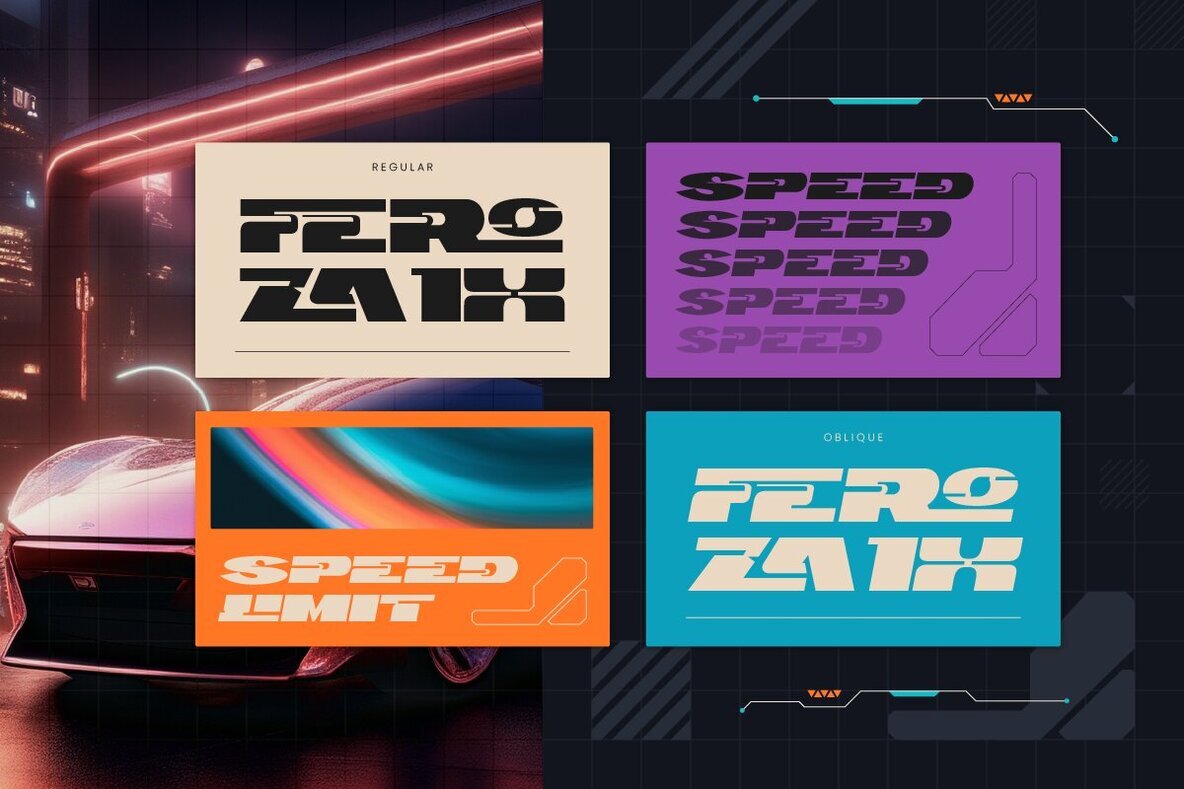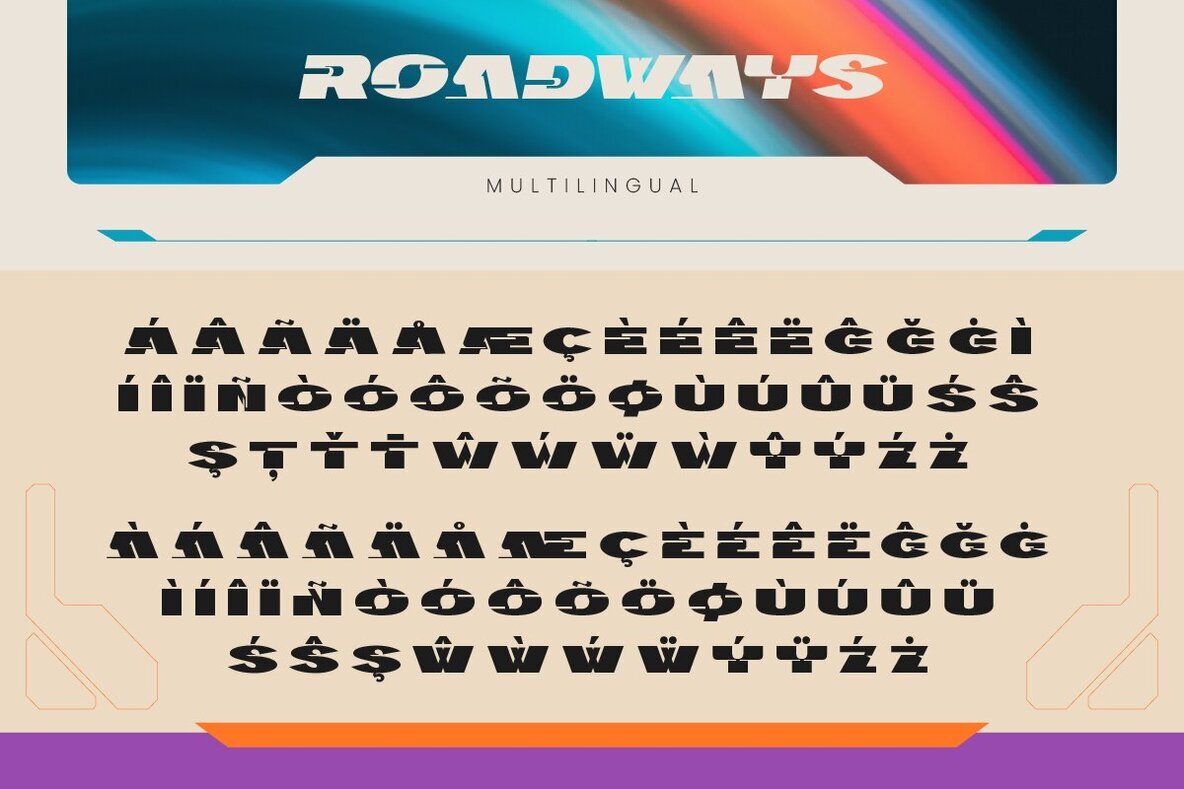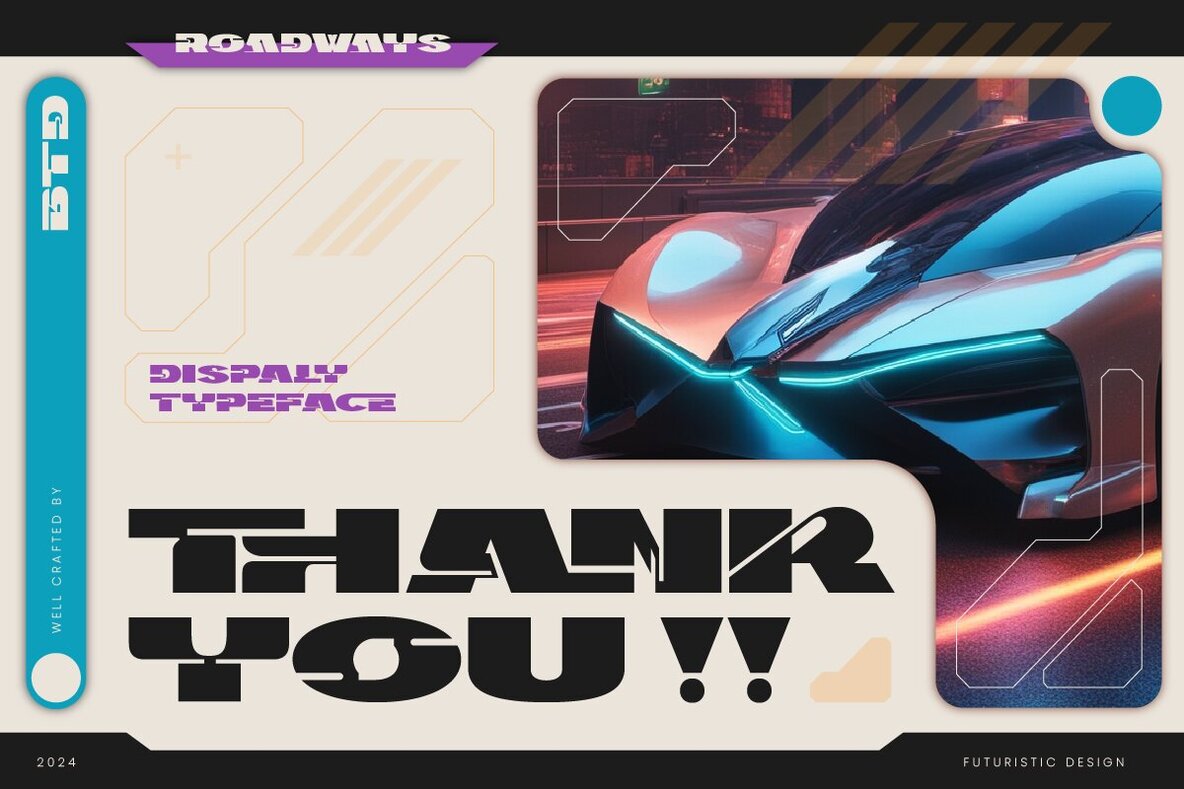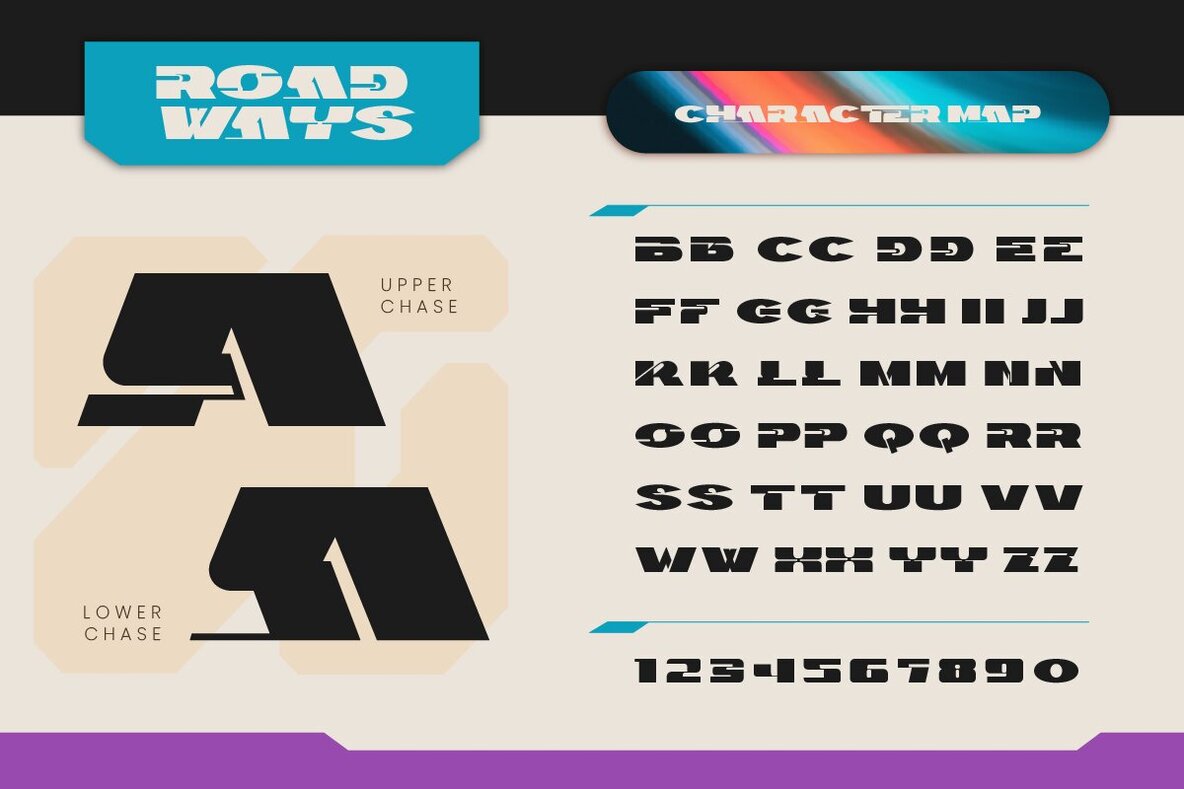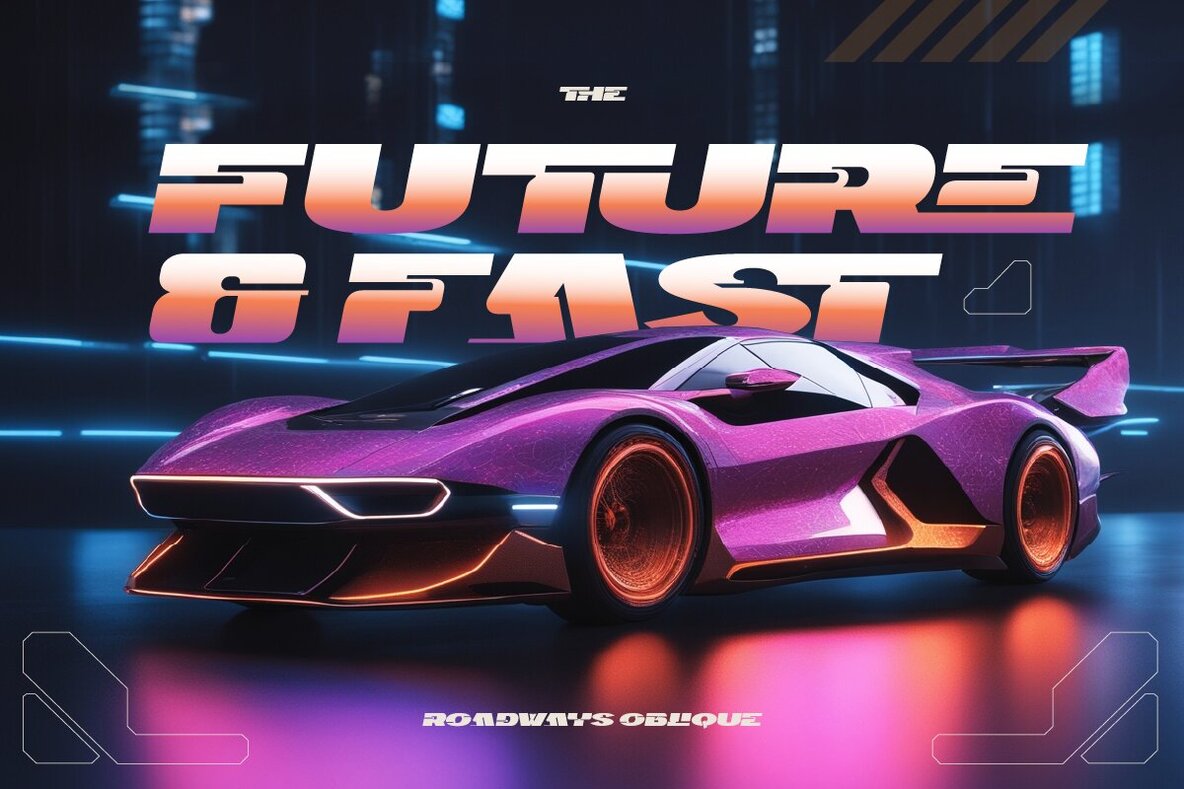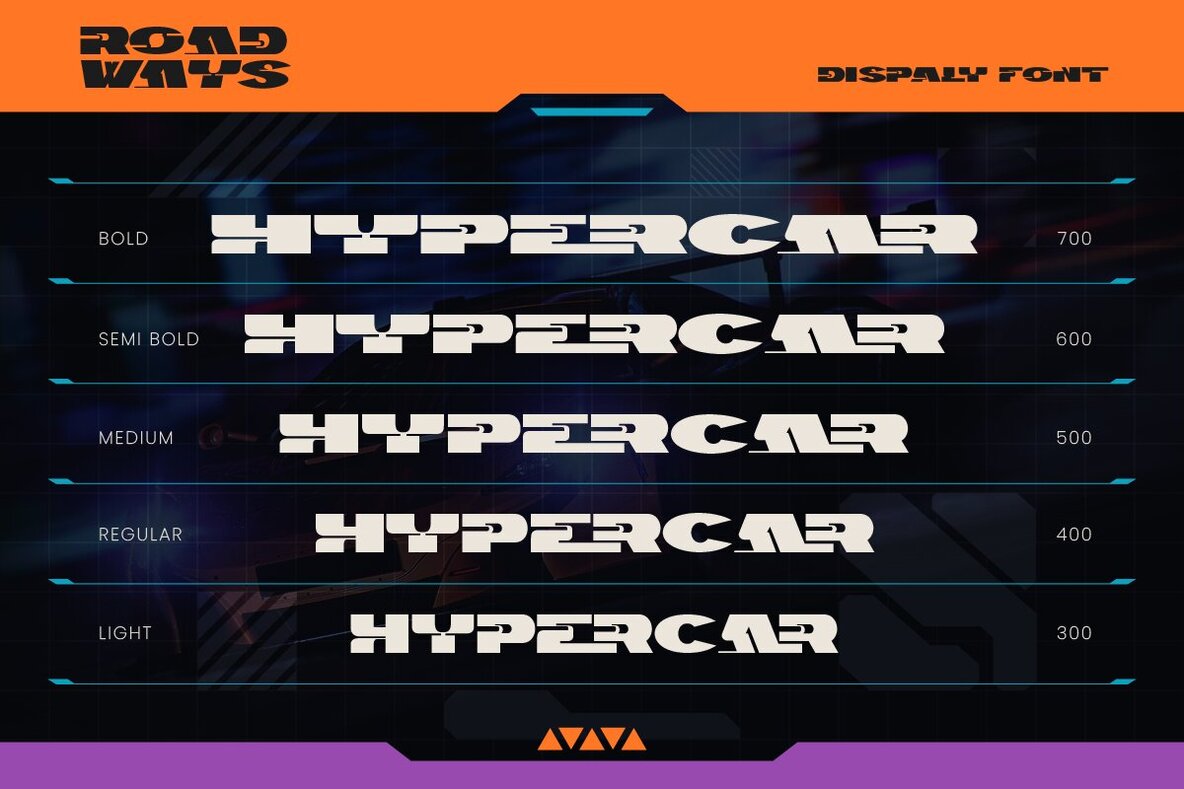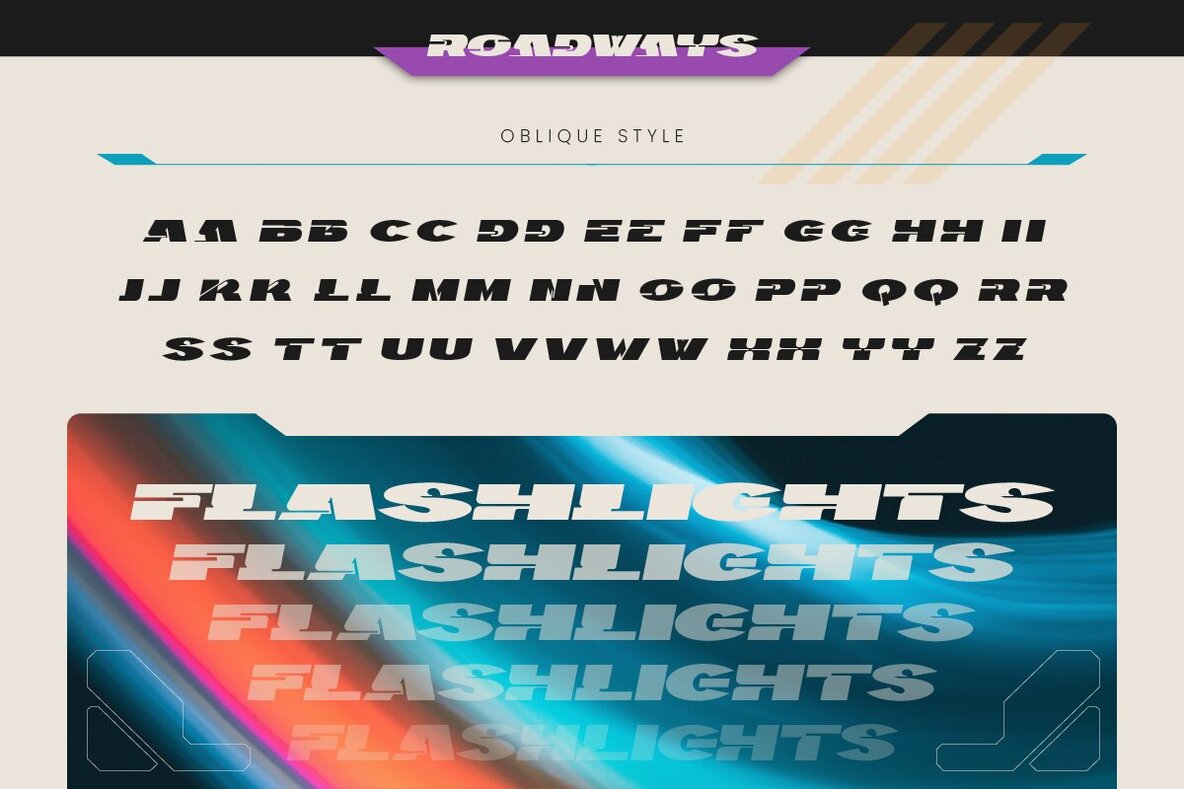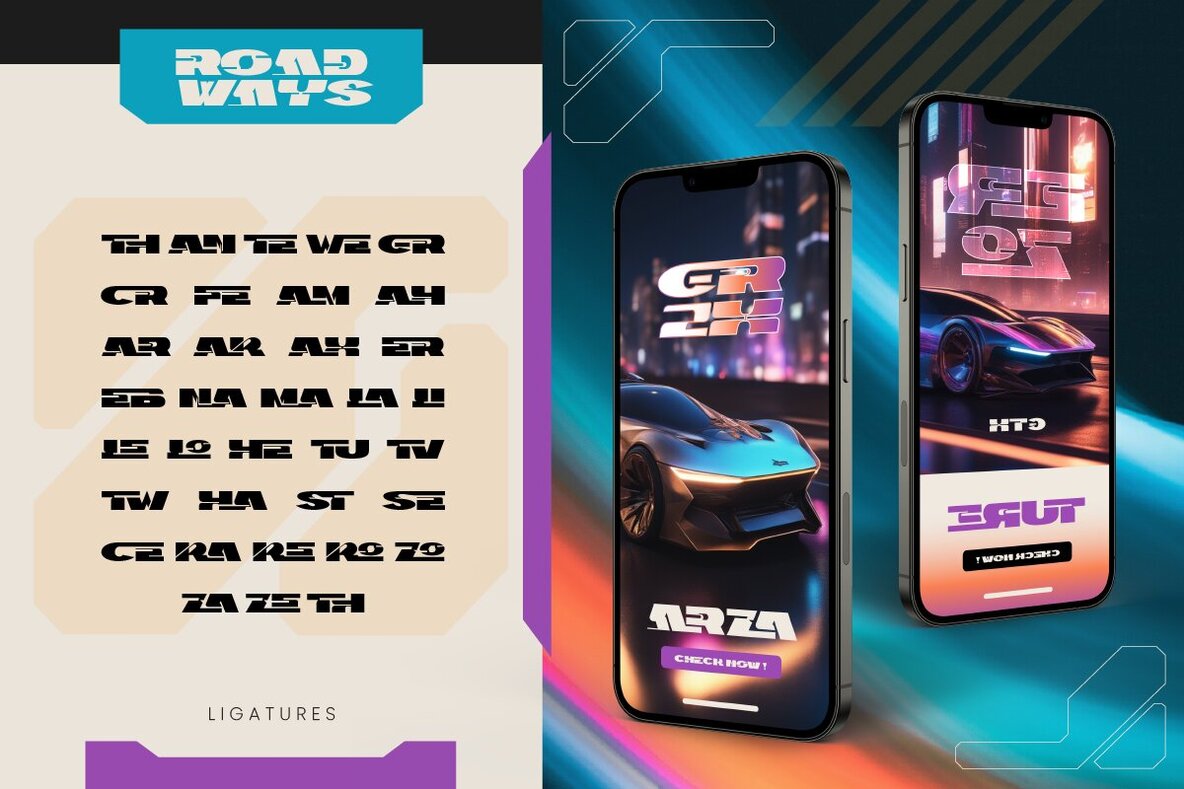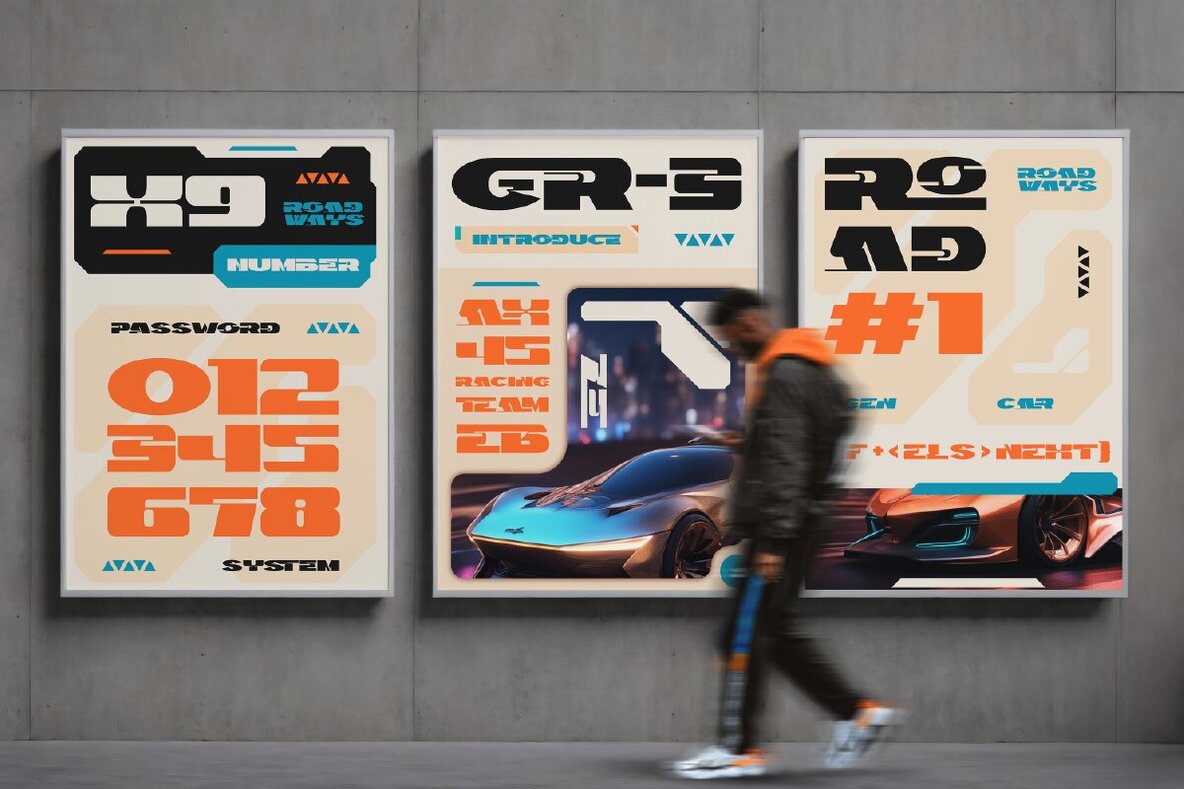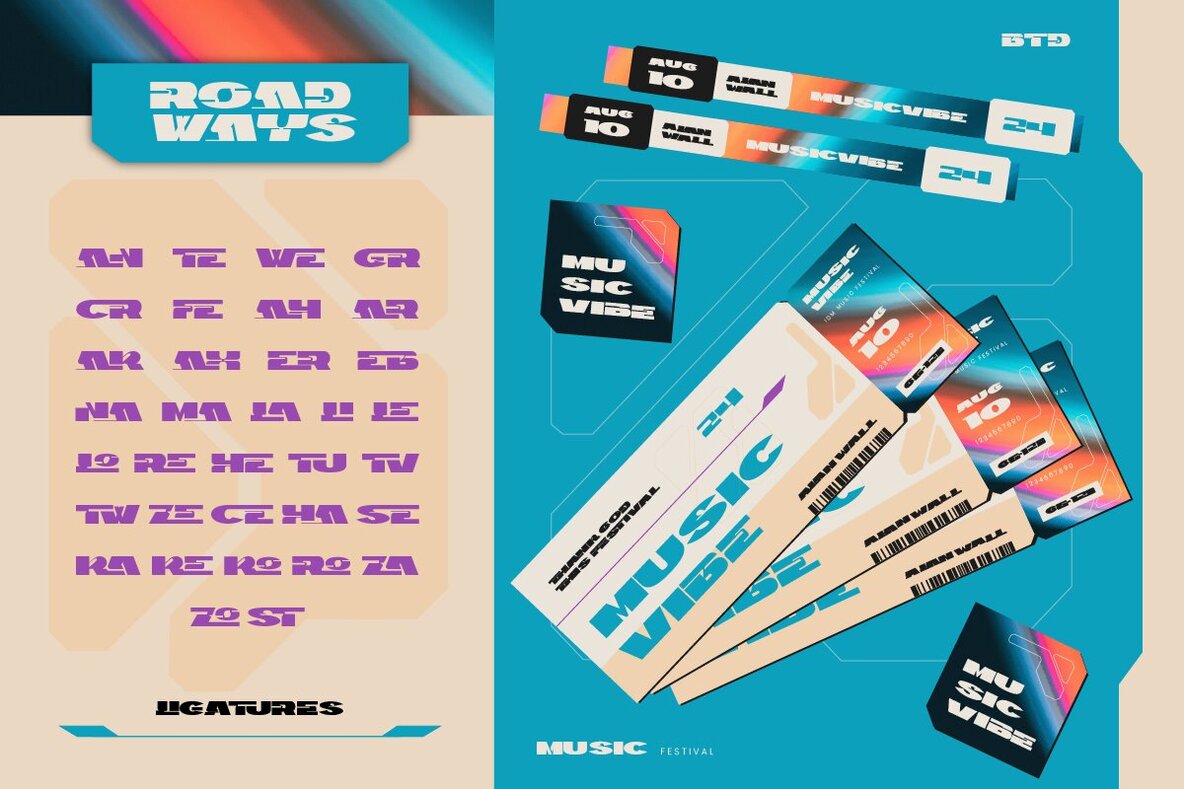
Roadways Font
Roadways brings a futuristic and modern impression with minimalist and unique geometric shapes. This font gives touch of aesthetic forward-thinking and digital or technology era. Roadways offering some font style so its a great choice for events, fashion-related content, posters, magazine and any other design project. Be the attention and stand out in this digital era with Roadways! Features: